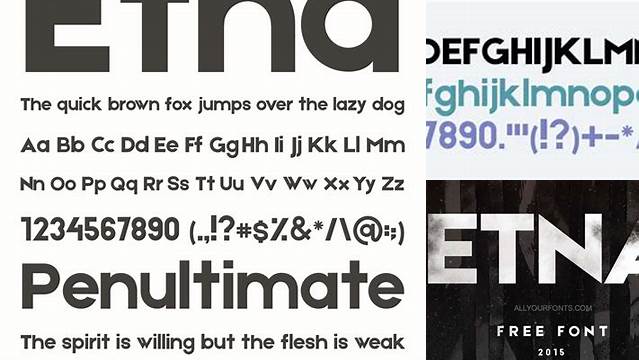
Are you on the hunt for a stylish and versatile font to elevate your design projects? Look no further! In this comprehensive guide, we'll dive deep into the world of Etna Regular font, exploring its unique characteristics, ideal applications, and, most importantly, where you can find a free TTF download. So, buckle up and get ready to discover the typographic charm of Etna Regular!
What is Etna Regular Font?
Etna Regular font is a typeface that exudes a sense of modern elegance and readability. Its clean lines and balanced letterforms make it a fantastic choice for a wide array of design endeavors. Think about it, guys, a great font can really make or break a project, right? Etna Regular strikes that sweet spot between sophistication and accessibility, making it a go-to option for designers and creatives alike. This font family often features a medium weight, making it incredibly versatile for both body text and headlines. Its design leans towards a contemporary aesthetic, making it suitable for projects that aim for a clean and polished look. The spacing and kerning are meticulously crafted, ensuring optimal readability across various mediums, whether it's on a screen or in print. It’s not just about looking good; it’s about communicating effectively, and Etna Regular helps you do just that. Moreover, the character set typically includes a comprehensive range of glyphs, supporting multiple languages and offering a variety of stylistic alternates. This means you can tailor the font to fit your specific needs, adding that extra touch of personalization to your designs. The attention to detail in Etna Regular’s design is what sets it apart, making it a reliable choice for any project that demands both style and substance. It’s a font that understands the importance of clarity and visual appeal, ensuring your message is conveyed with utmost precision and impact.
Key Characteristics of Etna Regular
When we talk about Etna Regular's key characteristics, we're really digging into what makes this font special. First off, its readability is top-notch. The letterforms are designed with clarity in mind, making it a breeze for your audience to read, whether it's on a website, a poster, or a printed document. And let's be honest, legibility is crucial, isn't it? No one wants to strain their eyes trying to decipher a fancy font. Another key aspect is its modern aesthetic. Etna Regular has a contemporary feel that aligns perfectly with current design trends. It’s clean, it’s crisp, and it’s got that je ne sais quoi that makes it stand out without being overly flashy. This makes it a safe bet for projects that need to look fresh and up-to-date. Versatility is another major plus. Etna Regular isn't a one-trick pony; it can handle headlines, body text, and even smaller captions with equal grace. This adaptability saves you time and effort because you don’t have to hunt for multiple fonts to complete a project. Plus, the consistent style across different weights (if available in the font family) ensures a cohesive look throughout your design. The font's proportions are also worth noting. The balanced height and width of the characters contribute to its overall harmony and visual appeal. It’s these subtle details that make a font truly professional and reliable. Furthermore, Etna Regular often includes a variety of glyphs and alternate characters, giving you creative flexibility. This means you can add unique touches to your typography, making your designs even more distinctive. In summary, Etna Regular’s key characteristics – readability, modern aesthetic, versatility, balanced proportions, and glyph options – make it a standout choice for designers looking for a font that delivers both style and substance. It’s a font that’s designed to perform, ensuring your message is communicated clearly and effectively.
Ideal Applications for Etna Regular
So, where does Etna Regular really shine? Well, the beauty of this font is its versatility. Think about branding projects, for instance. A clean and professional logo? Etna Regular has got your back. Websites that need to be both stylish and easy to read? Absolutely. Its modern aesthetic makes it a perfect fit for digital platforms, ensuring a seamless user experience. But it's not just for the digital world. Etna Regular also excels in print materials. Brochures, posters, magazines – you name it. Its readability ensures your message comes across loud and clear, no matter the medium. And let's not forget editorial design. The font's balanced letterforms make it a great choice for long-form text, like articles and reports. It keeps readers engaged without causing eye strain, which is a major win. Plus, the availability of different weights (if part of the font family) allows for clear hierarchy and visual interest. Consider using Etna Regular for headlines, subheadings, and body text to create a cohesive and professional look. Beyond these common applications, Etna Regular is also a fantastic option for invitations, business cards, and even presentations. Its elegant yet approachable style makes it suitable for a wide range of contexts. Whether you're creating a sleek corporate identity or a friendly marketing campaign, this font can adapt to your needs. In essence, Etna Regular is a workhorse font that can handle almost anything you throw at it. Its clean design and readability make it a reliable choice for any project that demands both style and functionality. It’s the kind of font that quietly enhances your work without stealing the show, ensuring your message is always the star.